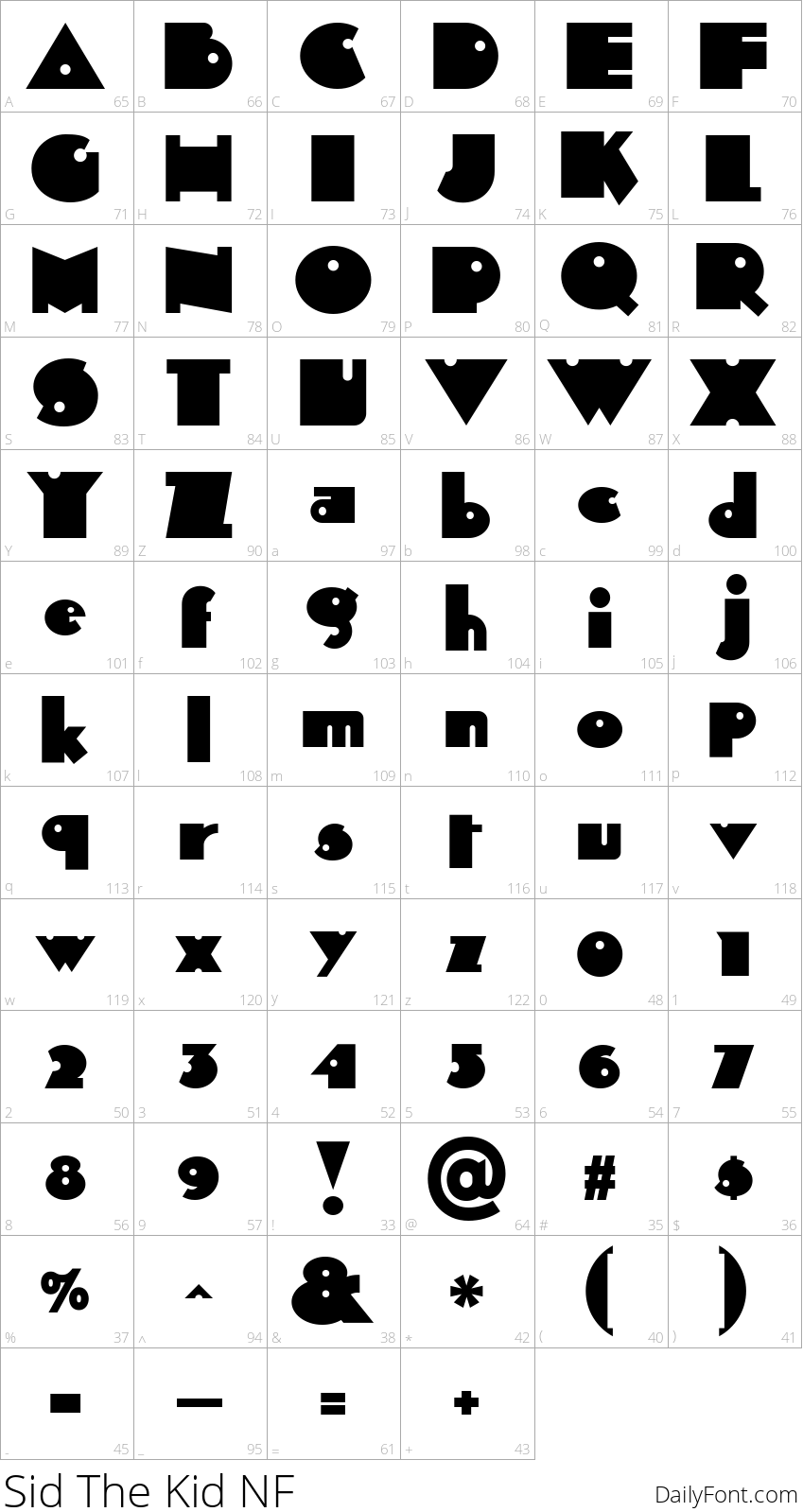
Sid The Kid NF
Bold rounded caps with a playful bite-mark notch accent
Sid The Kid NF is built from bold, chunky circles and rounded shapes, with several letters (like C, G, O, and Q) featuring a little bite or dot detail reminiscent of classic arcade icons. It reads as playful and energetic rather than serious, with a friendly, bubbly personality.
Use it for kids' party invitations, arcade or retro game branding, toy packaging, playground signage, or any logo that wants a fun, rounded, kid-friendly feel. Free to download for personal use.